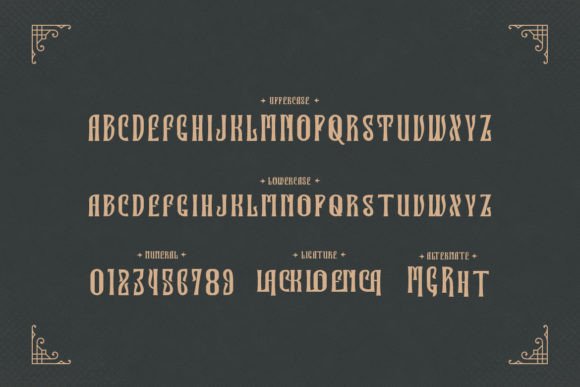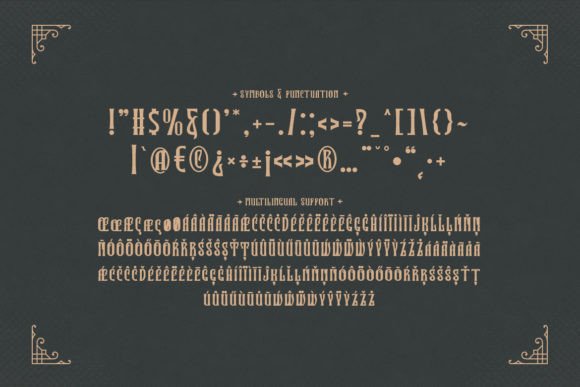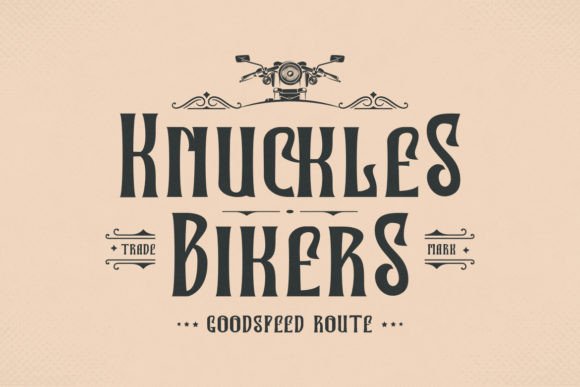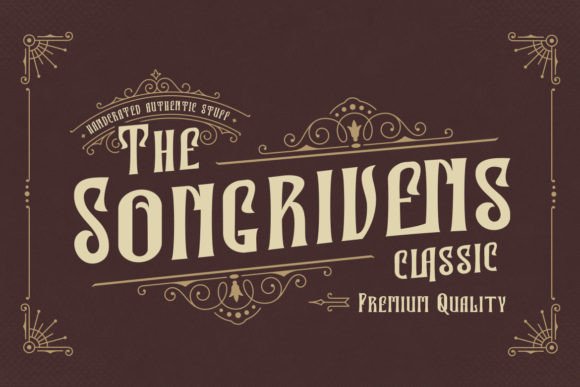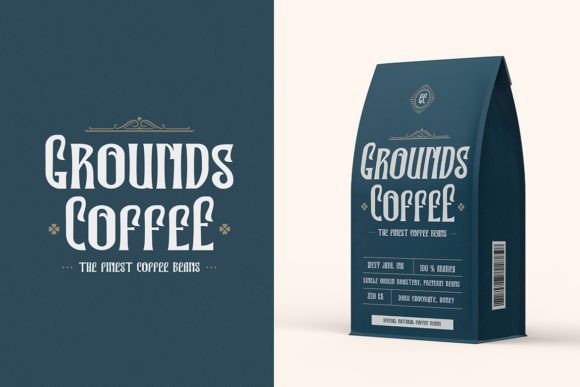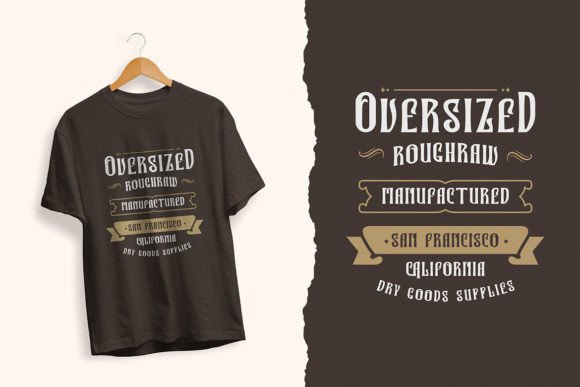
Introduction to Reinbrow Font
Imagine you’re browsing through a dusty vintage store, and you stumble upon an old poster with a unique, eye-catching font that immediately catches your attention. This is exactly the kind of creative moment that designers and artists often dream of, and the Reinbrow Font is here to bring that magic to your next project.
As a free design resource, the Reinbrow Font is a high-quality addition to any creative project. Its vintage display style makes it perfect for logos, headings, and signage, and its transparent background allows for seamless integration into any design. Whether you’re working on a logo for a coffee shop or a vintage restaurant, the Reinbrow Font is a valuable asset that can elevate your design to the next level.
Key Features of Reinbrow Font
- Reinbrow Font is available in a transparent background version, perfect for designers who want to add a touch of elegance to their work.
- Perfect for use in a variety of creative projects, including logos, branding materials, and digital art.
- Unique and stylish design makes it an excellent addition to any design resource library.
Honest Review: Reinbrow Font
I recently came across the Reinbrow Font, and I must say it’s been a game-changer for my creative projects. This font is a fantastic design resource that offers a lot of versatility and style. One of the things I love about it is that it’s a free download, making it accessible to designers of all levels.
- ✨ The Reinbrow Font is highly customizable, allowing me to easily adjust the transparency of the background to suit my design needs.
- ✨ The font itself is incredibly high quality, with crisp lines and a unique aesthetic that sets it apart from other fonts.
While the Reinbrow Font is an excellent addition to my design toolkit, there are a few limitations I’ve encountered. For example:
- ⚠️ The font is not suitable for all design projects, particularly those requiring a lot of bold or thick typography.
- ⚠️ Some users may find the font’s unique style to be a bit too quirky for their taste.
Overall, I’m thoroughly impressed with the Reinbrow Font. Its unique style, high quality, and free download make it an excellent design resource for creative projects. I highly recommend giving it a try!